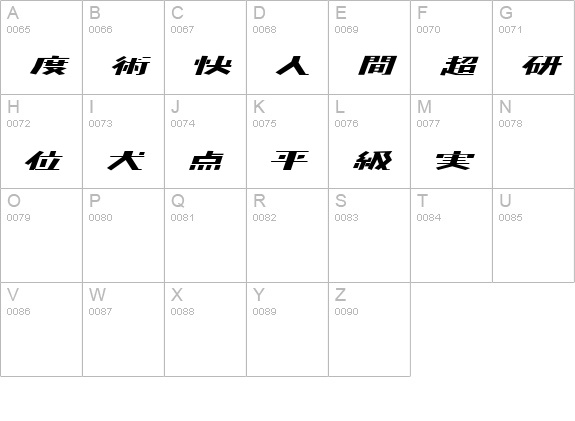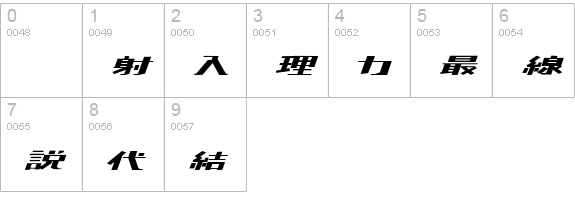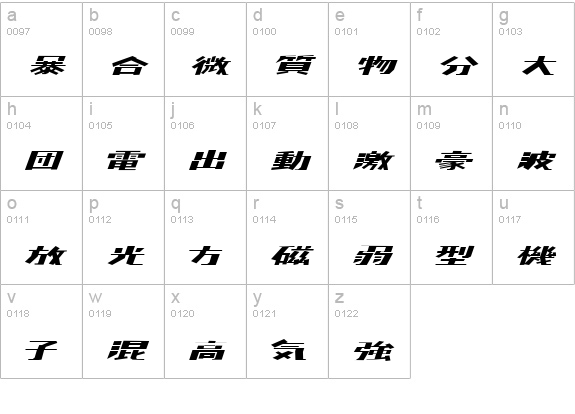
kaden Font Details
Introducing Kaden Font, a stunning and versatile typeface that will add a touch of elegance and sophistication to your design projects. With its clean lines and sleek curves, Kaden Font is perfect for a wide range of applications, from logo design to branding, from invitations to packaging. This font is not only visually striking, but it also offers a high level of readability, making it suitable for both print and digital media. Its unique character set includes a variety of alternate glyphs, ligatures, and stylistic alternates, allowing you to create truly unique and eye-catching designs. One of the best things about Kaden Font is that it is completely free. Yes, you read that right - this exceptional font is freely available to download at FontsMarket.com. Whether you are a professional designer or a hobbyist, you can now enhance your work with this remarkable typeface without spending a single penny. So why wait? Head over to FontsMarket.com now and download Kaden Font to take your designs to the next level. With its stunning aesthetics and its unbeatable price, this font is a must-have for anyone who wants to make a lasting impression. Don't miss out on this incredible opportunity - get Kaden Font today and let your creativity soar.